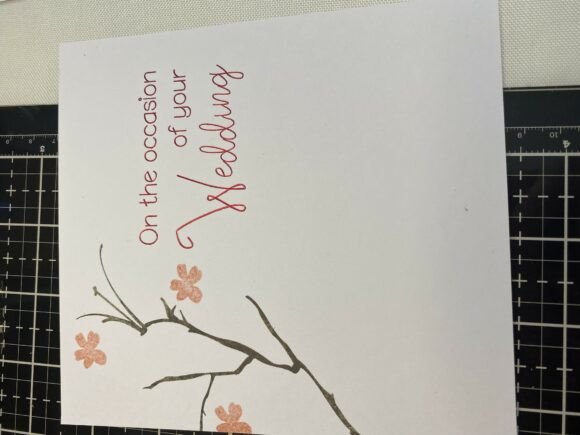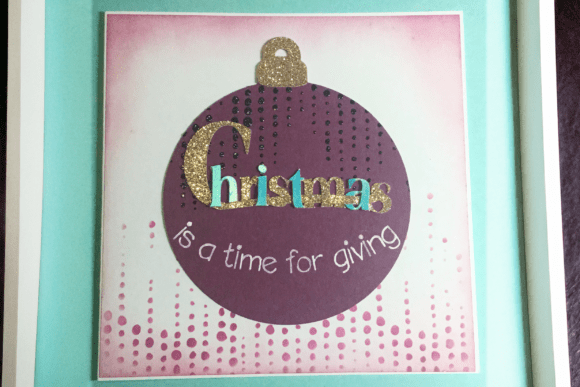
Introduction to Child’s Play Slf Font
Introducing Child’s Play SLF, a font that transcends generations, intelligible to vibrant youngsters and seasoned readers alike.
Crafted for seamless utilisation with plotters and cutters, Child’s Play SLF lends a characteristic charm to stationery, bookplates, and a plethora of personalised items Being a single-line font, it offers boundless possibilities for foiling, drawing, etching, and embossing, harmonizing perfectly with laser, CNC, and blade/pen-operated systems.
Key Features of Child’s Play Slf Font
Why Choose Child’s Play Slf Font?
Child’s Play Slf Font offers exceptional quality and versatility, making it a valuable addition to your design toolkit. Whether you’re creating for personal projects or commercial use, Child’s Play Slf Font delivers professional results.